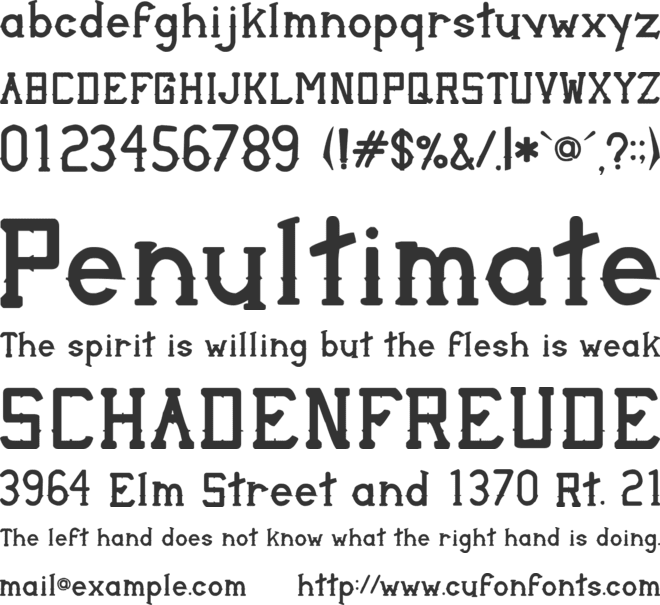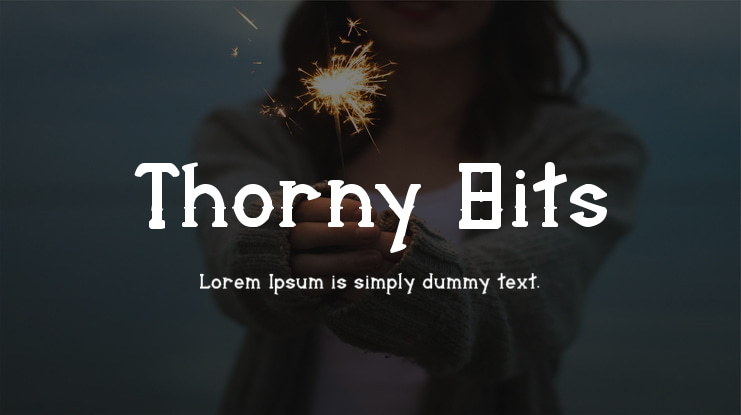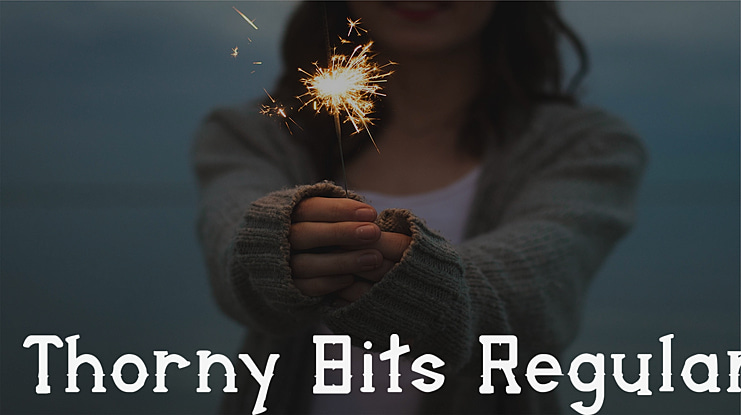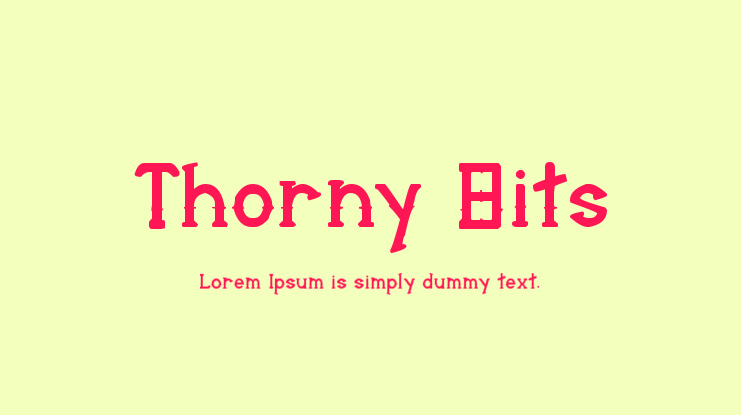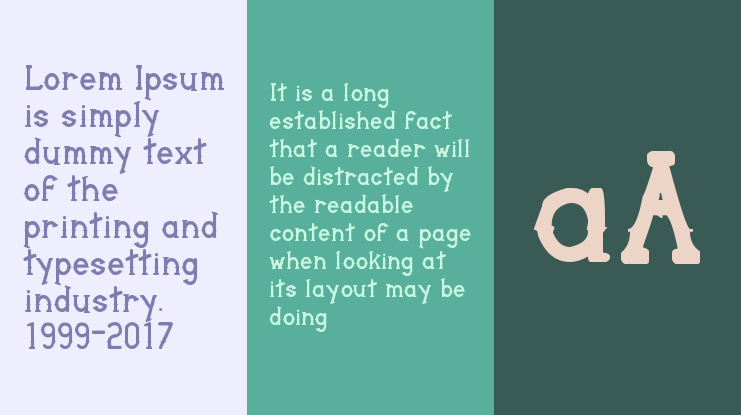
Thorny Bits Font
Thorny Bits was created to capture the play-fullness of a font with thorns as an alignment guide. For the most part the font is a little frontier, a little Goth, a wavy illustration tool and a great display device. It is not a traditional serif font but rather a skewed serif font. Thorny Bits has optically equal strokes and the x-height appears to vary organically.